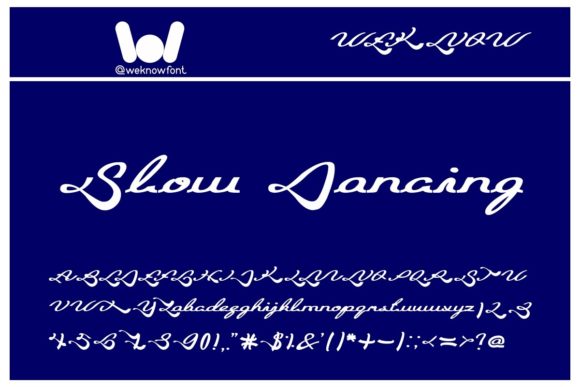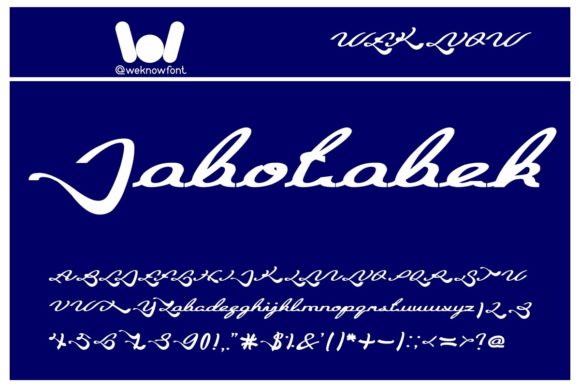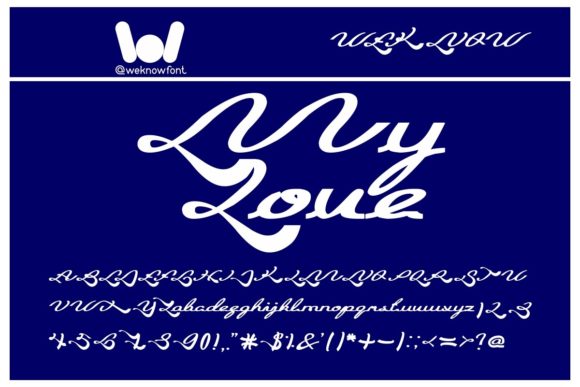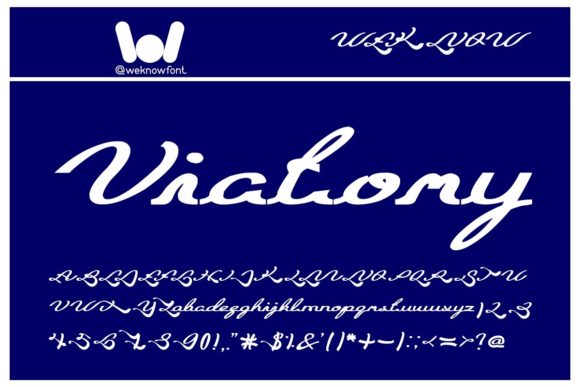
The Blessing Son Font: A Creative Gem for Designers
Have you ever been in the middle of a design project, and suddenly, you’re stuck on finding the perfect font? I recall a recent experience where I was working on a branding project for a trendy boutique, and I just couldn’t find a font that captured the right vibe. That’s when I stumbled upon the Blessing Son font, and it completely transformed my design. In this article, I’ll share my journey with this unique handwritten font and explore its features, uses, and alternatives.
An Honest Review of Blessing Son Font
The Blessing Son font is a true gem, and here’s what I love about it:
- ✨ Unique and creative flair: The font has an interesting character set that adds a personal touch to any design.
- ✅ Highly versatile: Suitable for brand identity projects, apparel, posters, music, movies, games, magazines, comics, and more!
- 💫 Handwritten feel: The font has a lovely, organic feel that adds warmth to designs.
However, I did notice a few minor quirks:
- 🤔 Limited character set: While the font has a wide range of characters, it may not have every special character or glyph you need.
- ⚠️ May require adjustments: Depending on the design, you may need to adjust the font size, spacing, or kerning to get the perfect look.
The Designer Inspiration Behind Blessing Son Font
The Blessing Son font was created with the intention of capturing the essence of handwritten creativity. The designer aimed to create a font that would add a personal touch to designs, making them more relatable and engaging. While I couldn’t find information on the actual designer, it’s clear that the font was crafted with love and attention to detail.
| Font Name | Blessing Son Font |
| Author | weknow |
| What is the Blessing Son font best used for? | The Blessing Son font is suitable for a wide range of design projects, including brand identity, apparel, posters, music, movies, games, magazines, comics, and more! |
| Is the Blessing Son font easy to read? | Yes, the Blessing Son font is highly legible, making it perfect for body text and headings. |